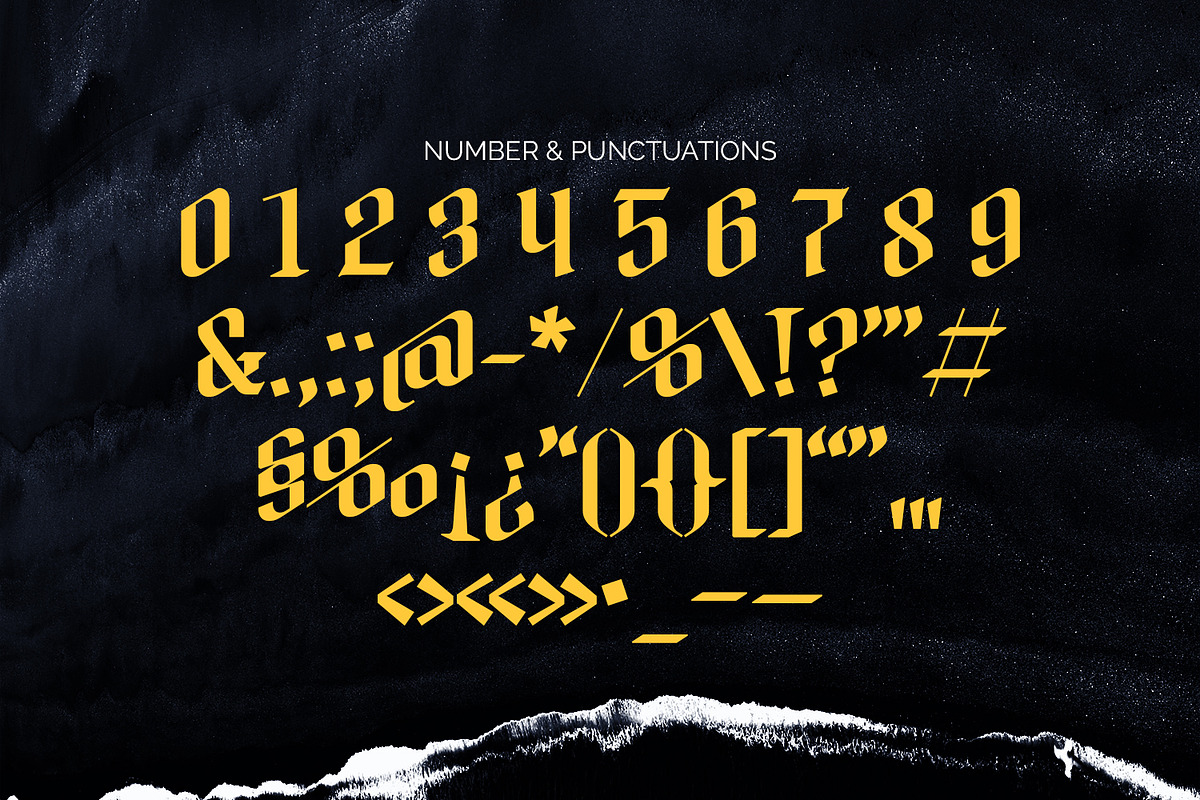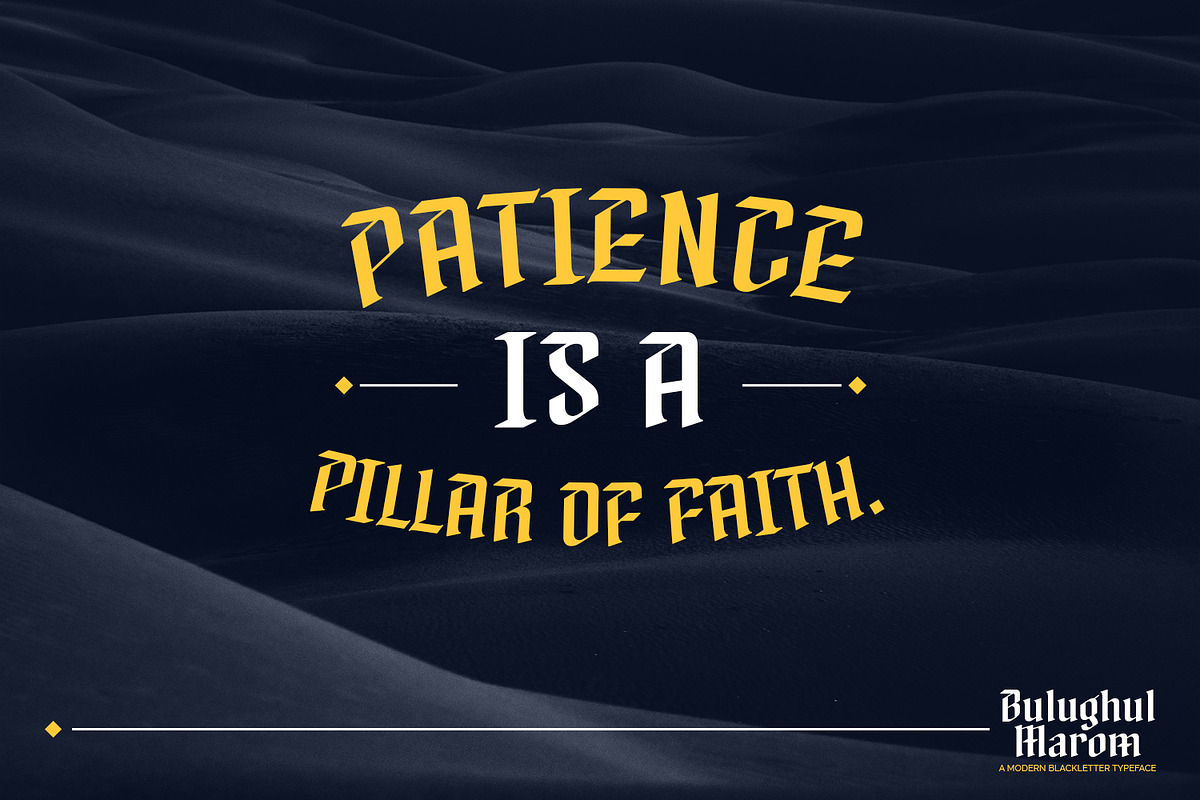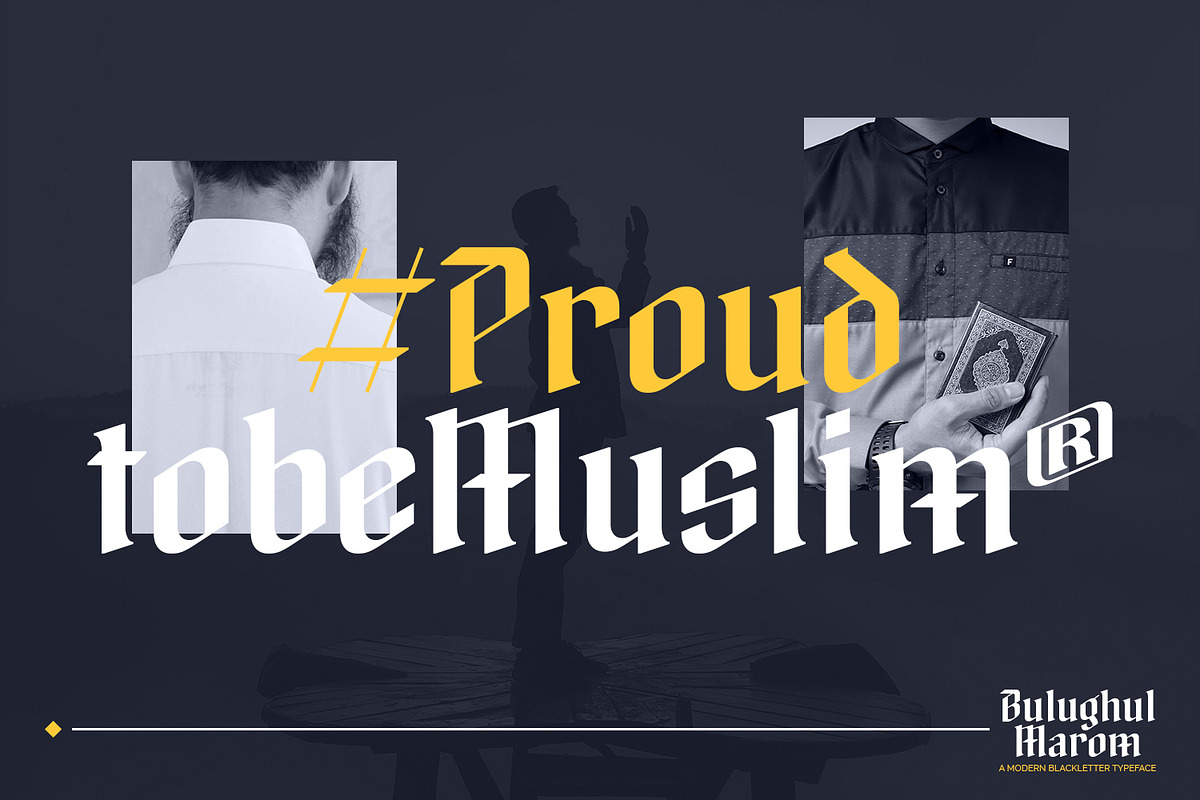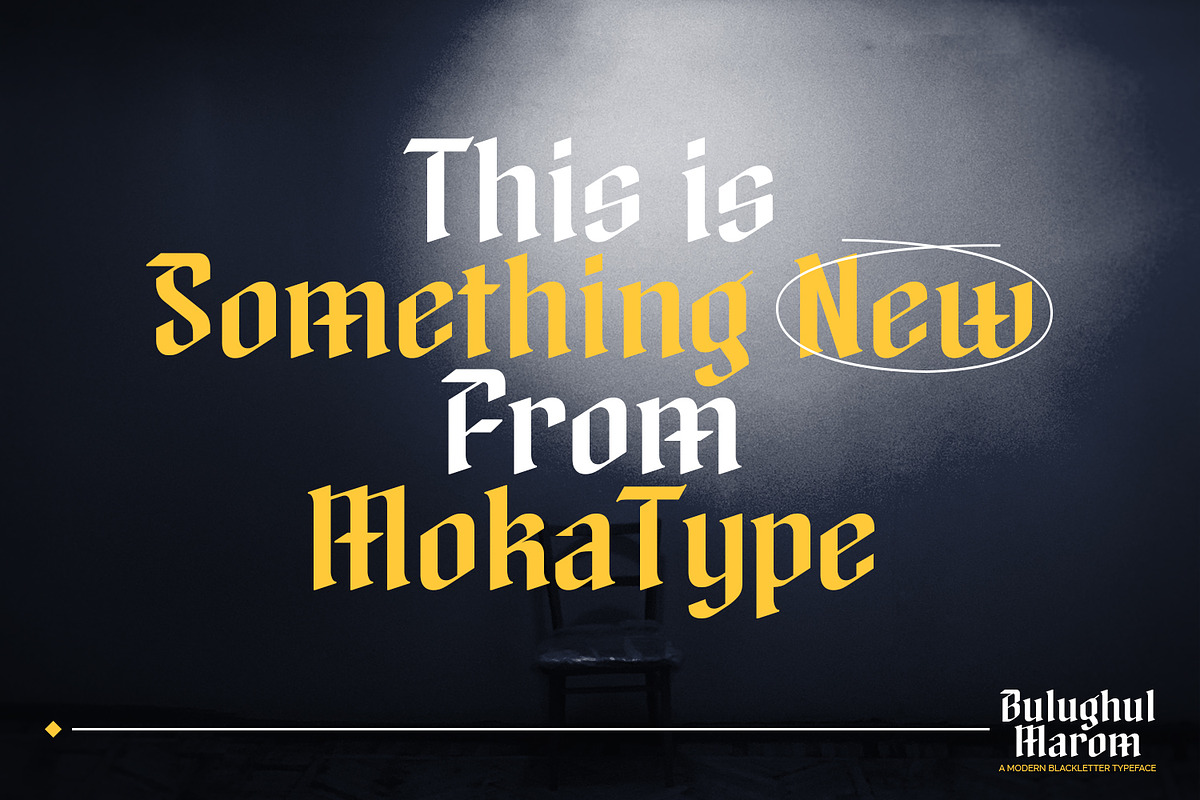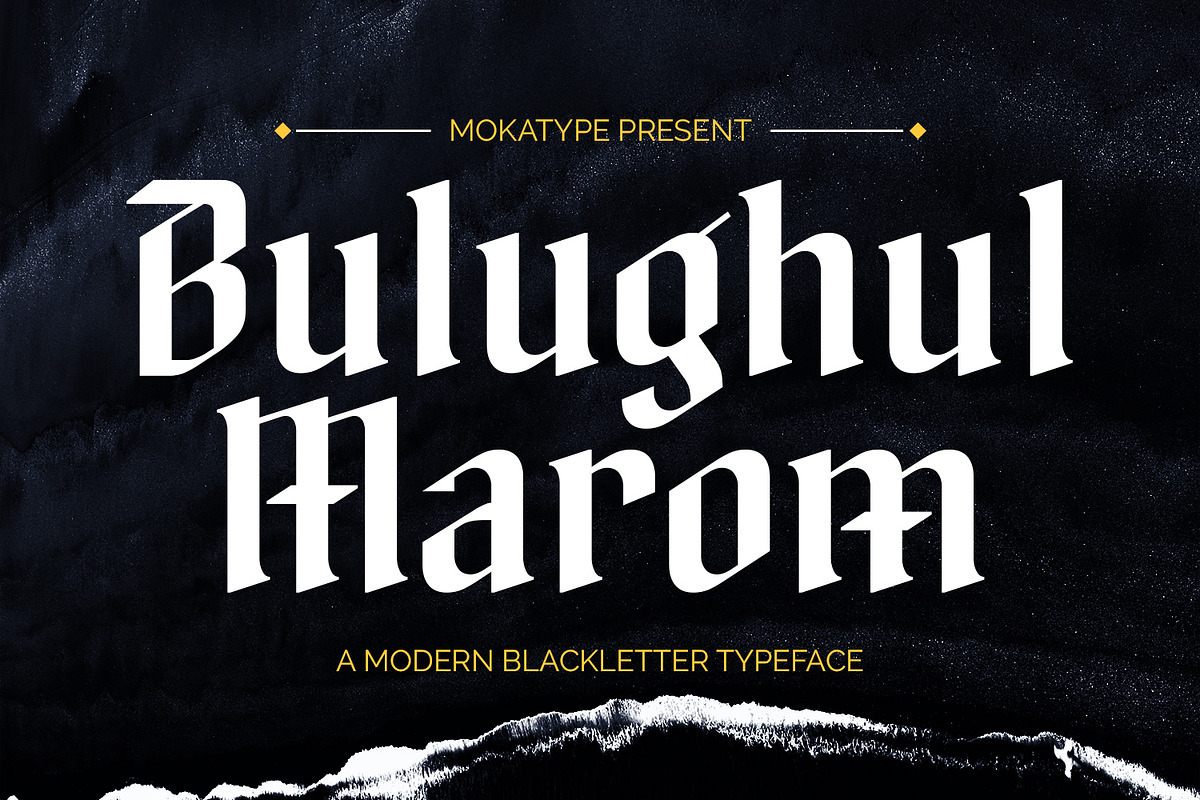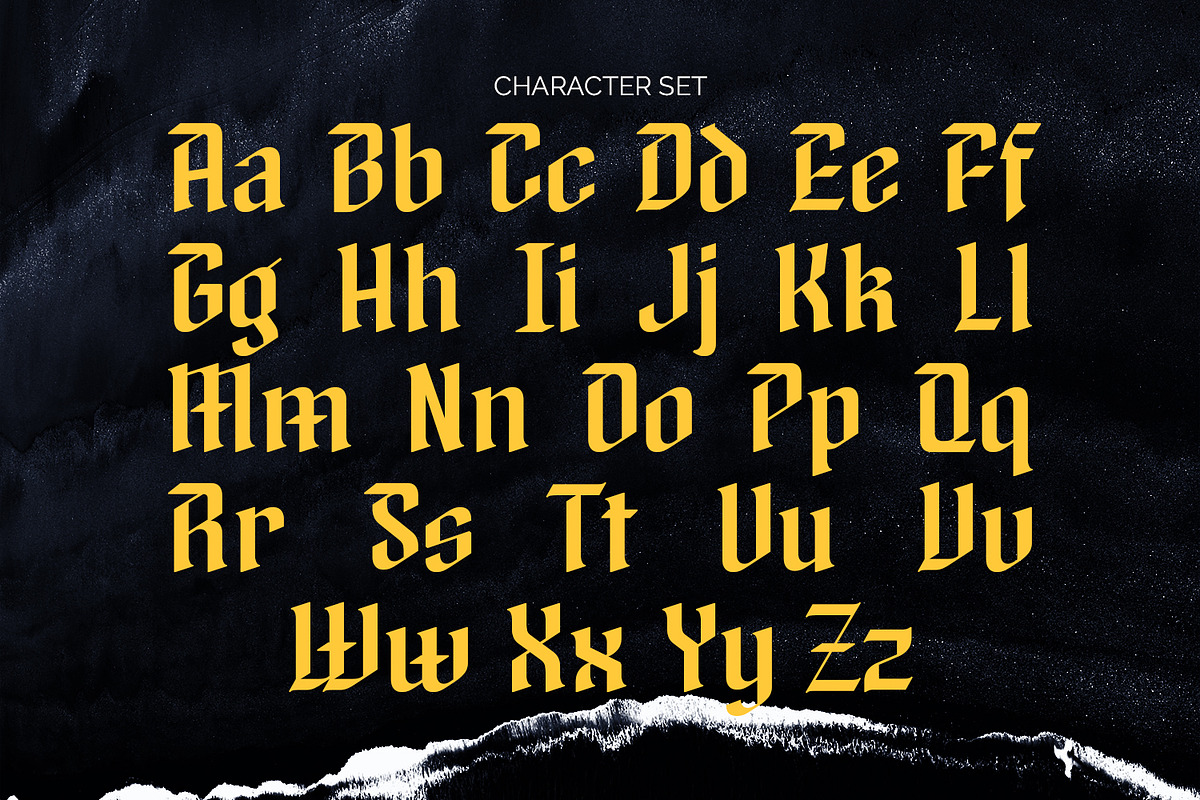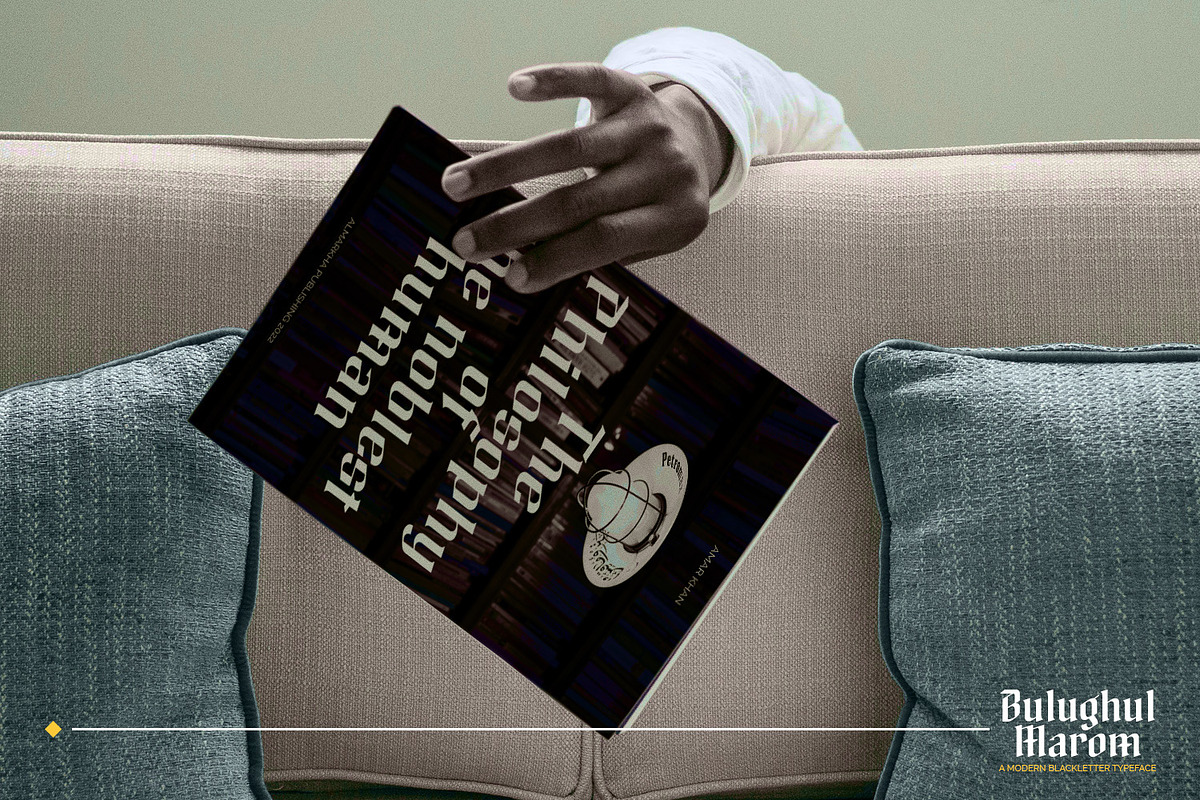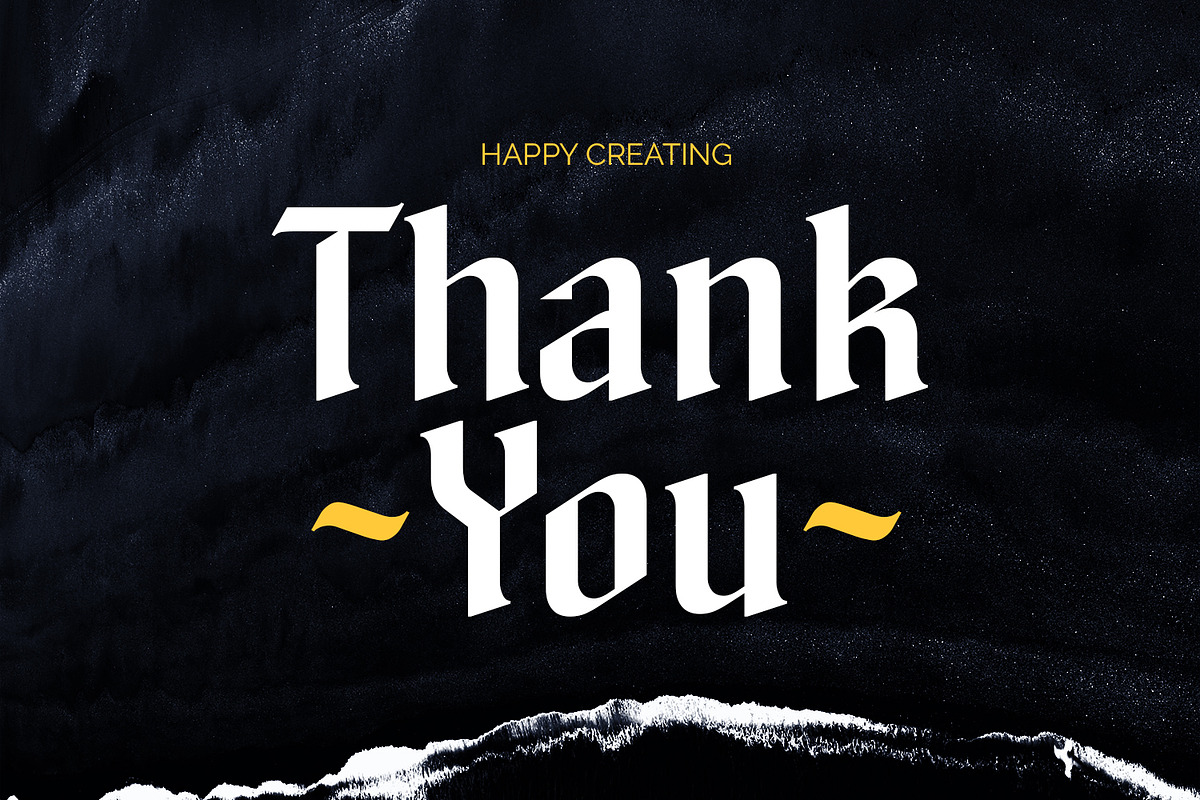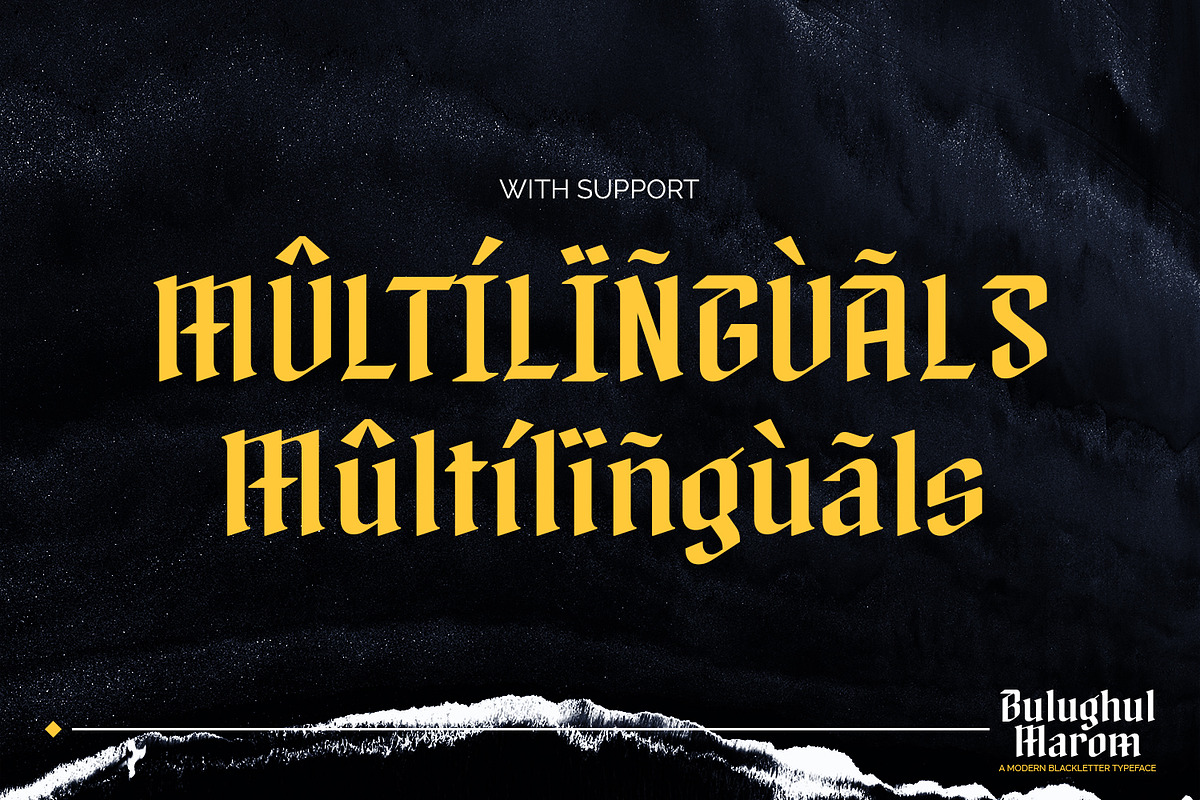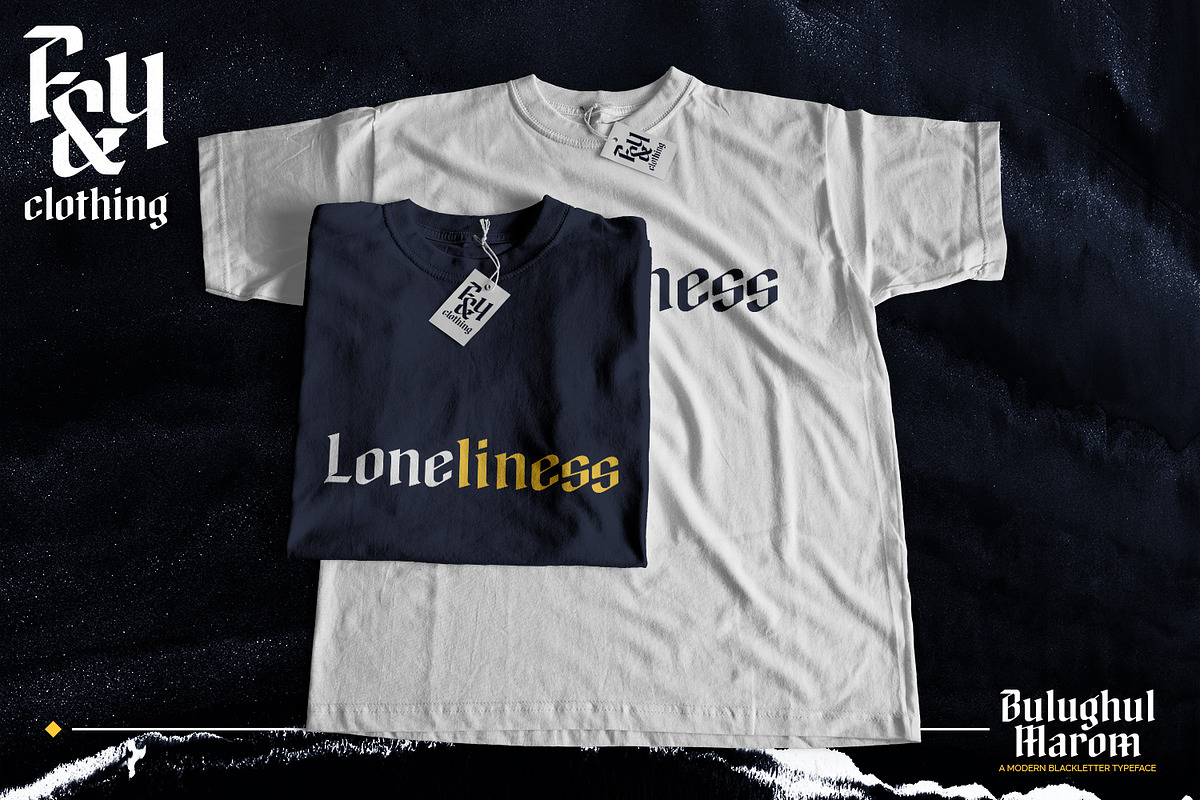
Bulughul Marom - Modern Blackletter
Bulughul Marom - Our new collection of modern display fonts inspired by Blackletter calligraphy with strong character and sharp edge suitable for designing logos, templates, brochures, videos, advertising branding, and more. Bulughul Marom font with strong and challenging nuances. Very suitable for headlines, typography, Poster, magazines, brochures, packaging, Websites, and much more for your design needs, making your designs more modern and professional looks as vintage modern. What's Included: